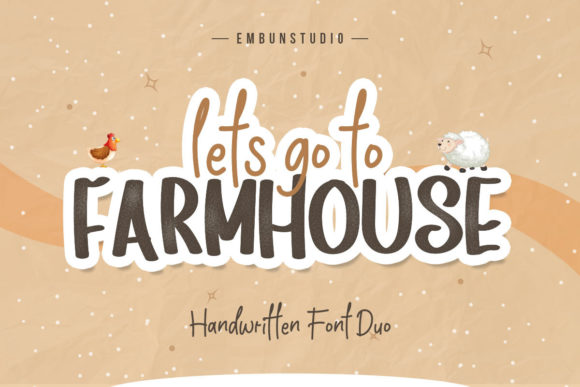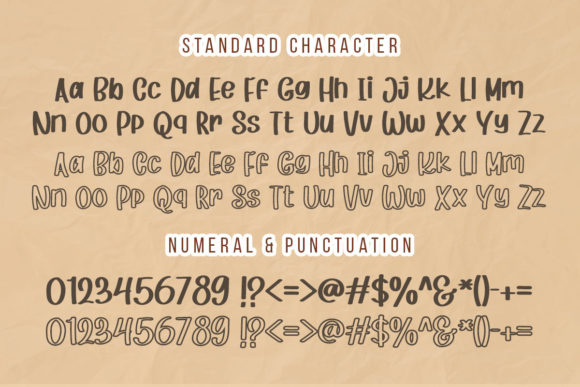
About Go to Farmhouse Font
Go to Farmhouse is a charming duo font (handwritten and display) suitable for projects such as content design for Instagram, logo design, branding design, cricut craft, accessories, decorations, and more. It will add a fun and happy spark to any design or project that you wish to create!